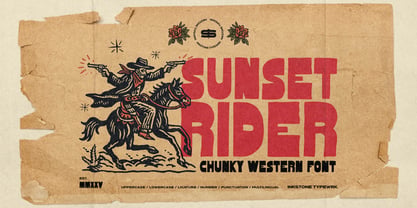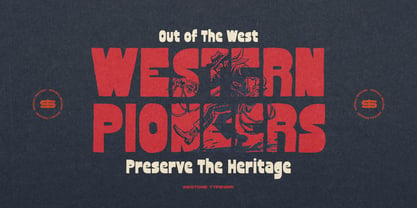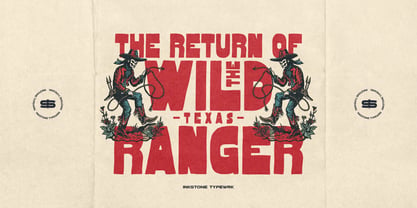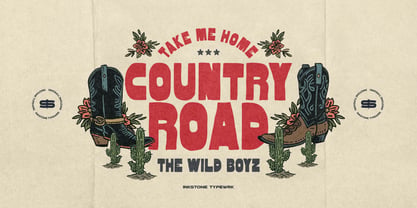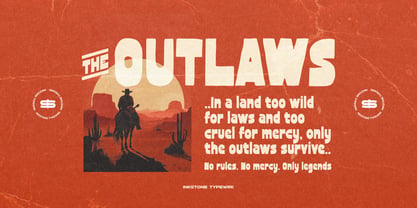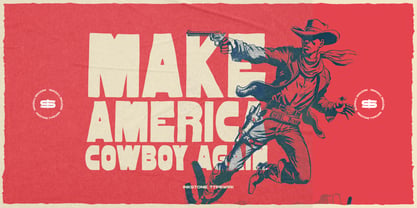
Sunset Rider
by Inkstone Typewrk
The Sunset Rider Font Family was designed by Andhika Pradana, Yono Asmadiputra and published by Inkstone Typewrk. Sunset Rider contains 1 styles. More about this family
Sunset Rider - Chunky Western Font Saddle up for some serious flair with Sunset Rider, a handmade, chunky western font bursting with funky personality and retro cartoon style. Rooted in organic character and bold expression, this typeface brings a rebellious twist to classic western vibes. Think saloon signs meet Saturday morning cartoons—Sunset Rider fuses grit and play with thick, energetic strokes and vintage charm. Perfect for logos, merch, festival posters, or anything that needs a hit of wild-west funk and handcrafted authenticity. Whether you’re crafting hip apparel branding, throwback signage, or standout headlines, Sunset Rider delivers a fresh, edgy punch of retro-western cool.
Designers: Andhika Pradana, Yono Asmadiputra
Foundry: Inkstone Typewrk
Inkstone Typewrk is a bold and visionary type foundry based in Surabaya, Indonesia. Established in 2025, we are multidisciplinary designers driven by fearless ideas and stylish execution. We craft letterforms with attitude—sculpting typefaces that carry a rebellious edge. We don’t just design fonts—we shape type.Founded by Yono Asmadiputra and Andhika Pradana, a dynamic duo united by their love for expressive typography, Inkstone Typewrk is built on passion, collaboration, and a shared obsession for detail. Their synergy fuels a creative playground where bold ideas meet refined craftsmanship.